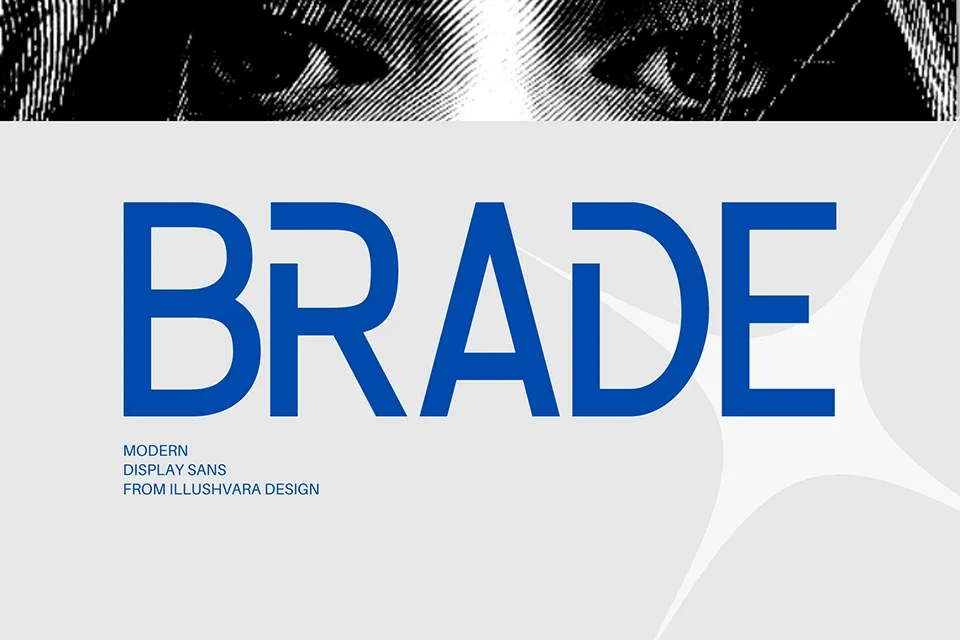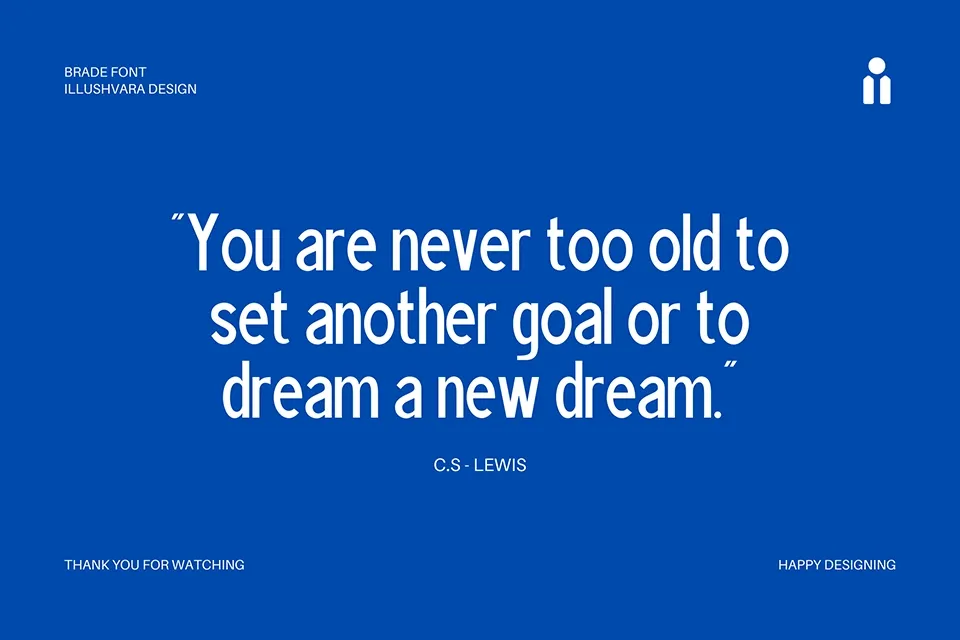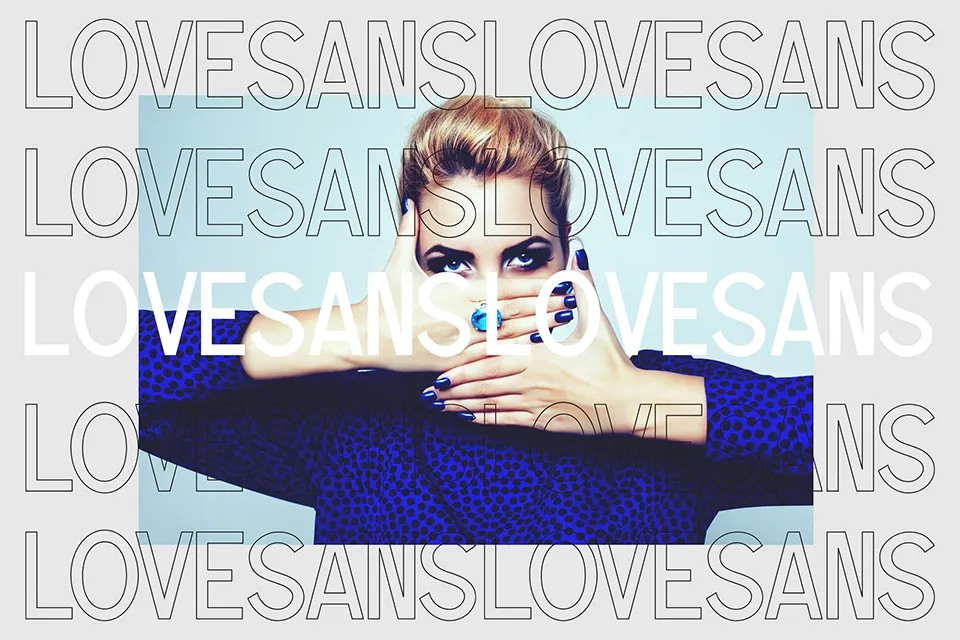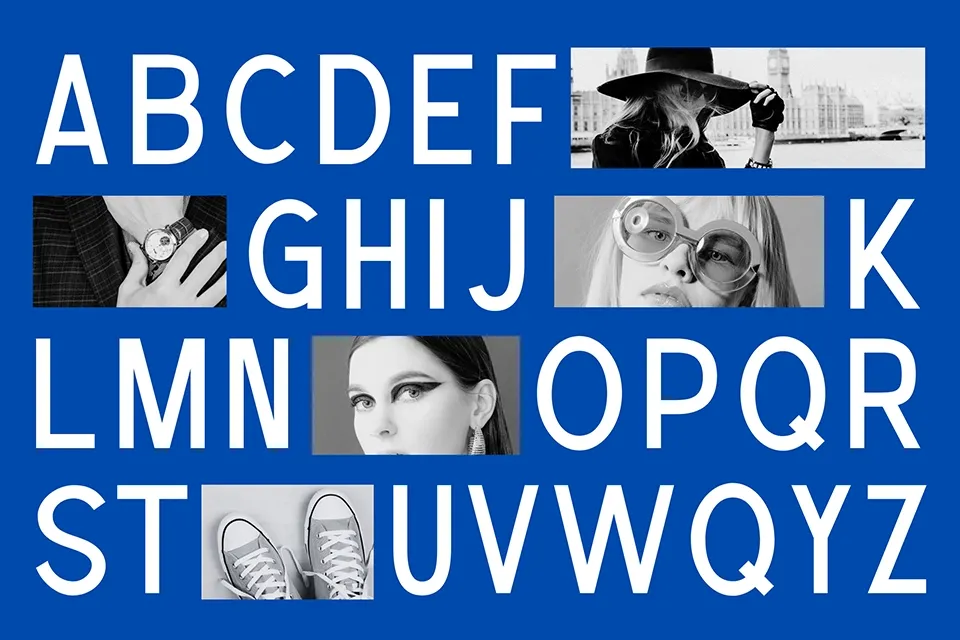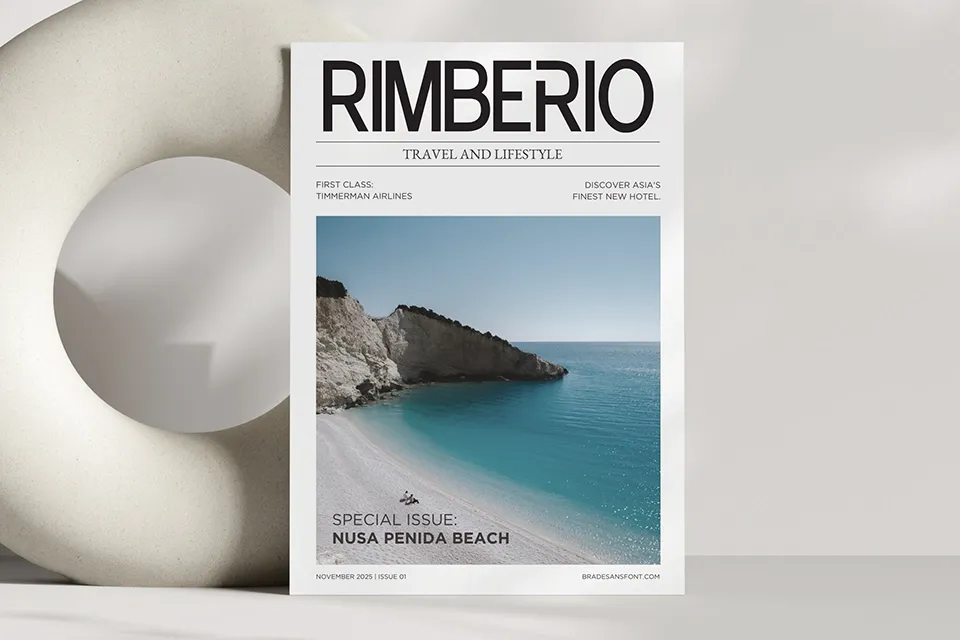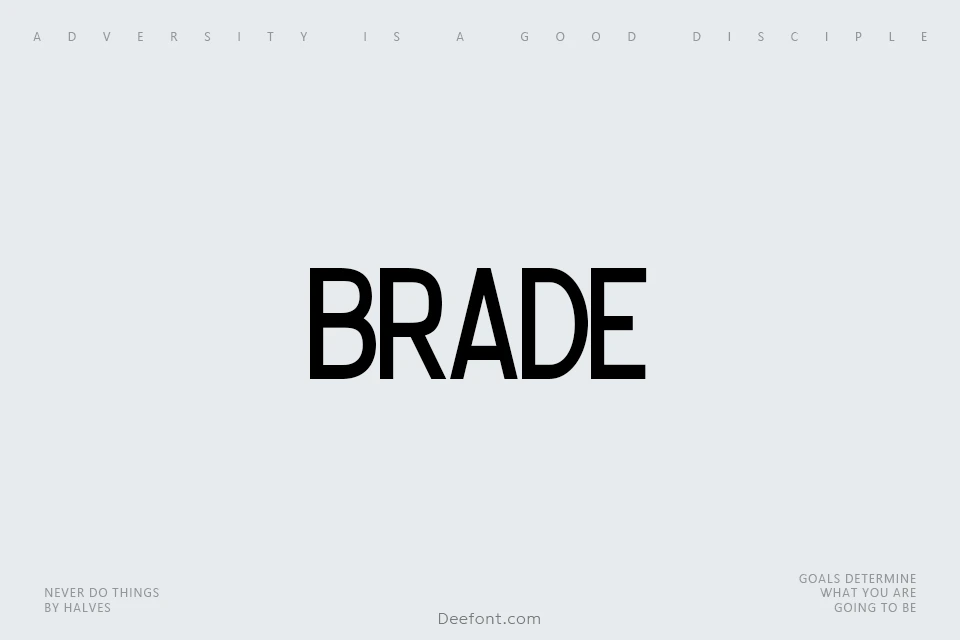
Brade Font
Brade Font is a modern display sans-serif typeface designed to stand out with its clear lines, unique proportions, and contemporary character. Perfect for branding, headlines, posters, and creative projects, Brade Font offers a stylish, distinctive look that sets your designs apart from conventional sans-serif fonts34. Its geometric construction and bold presence make it ideal for impactful visual statements.